Now here’s F.
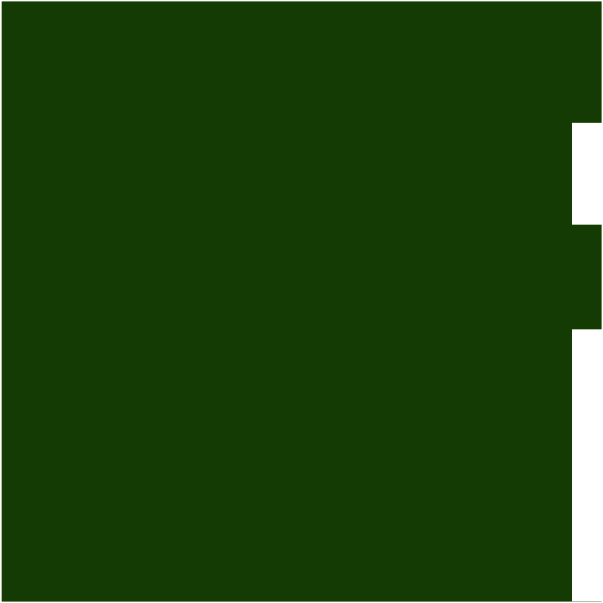
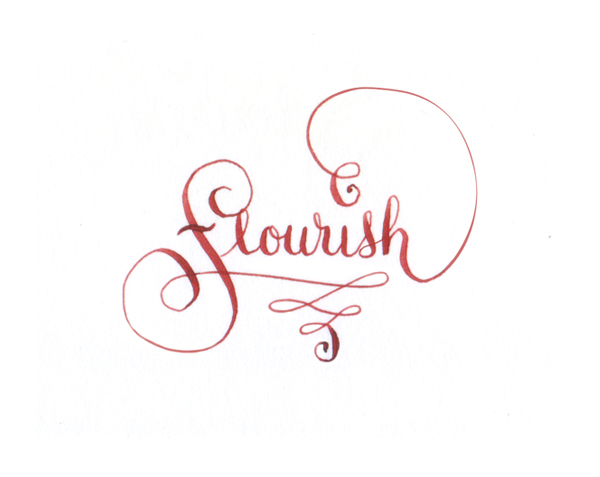
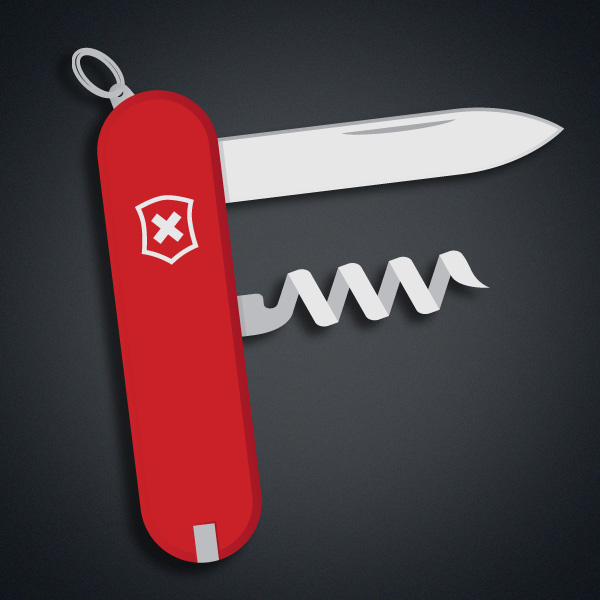
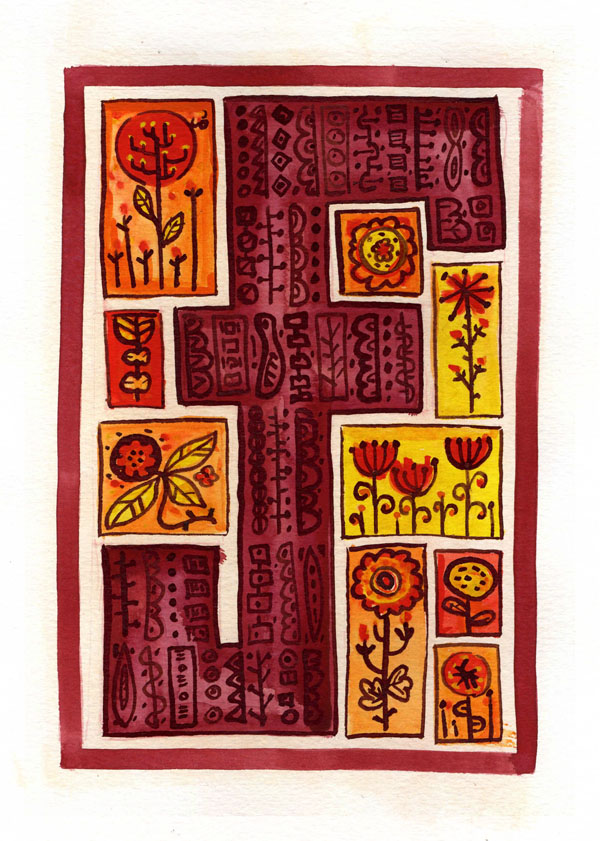
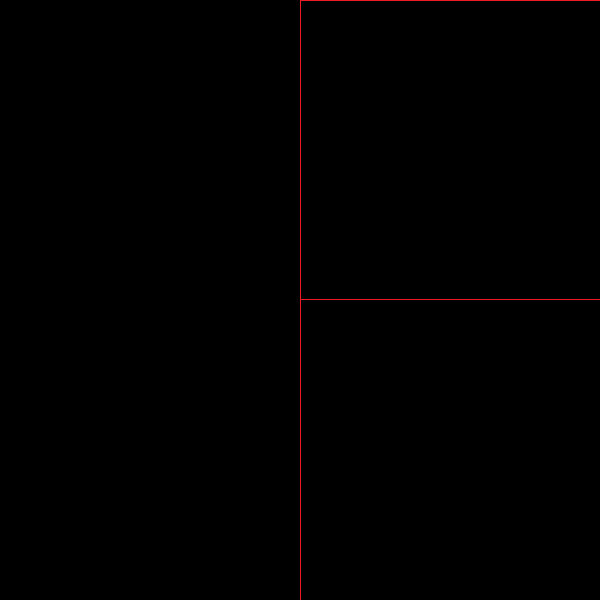
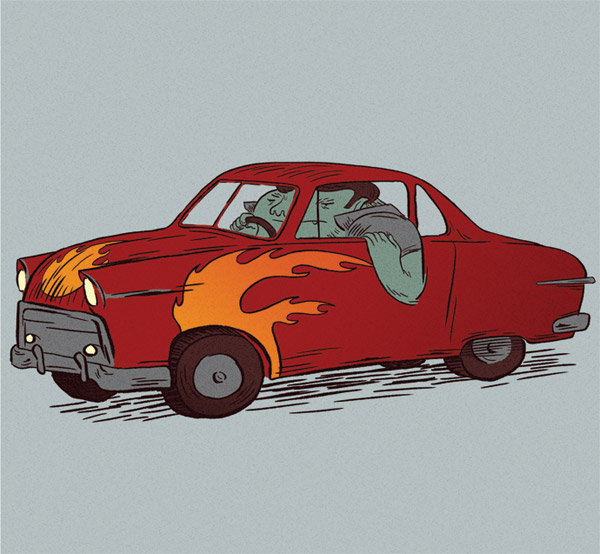
JOSE MIGUEL CONDE ALONSO
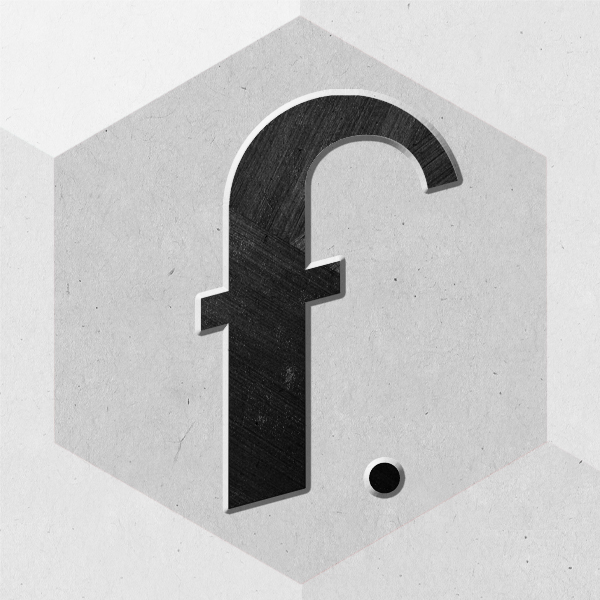
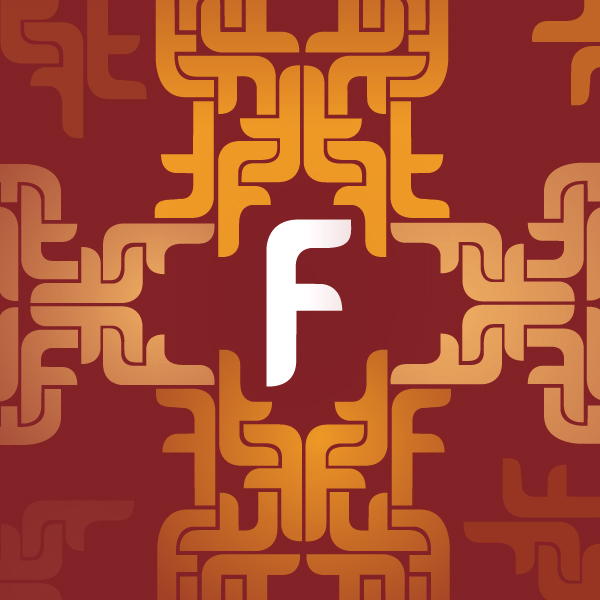
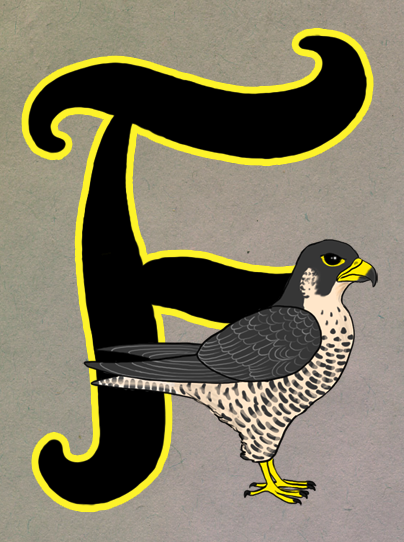
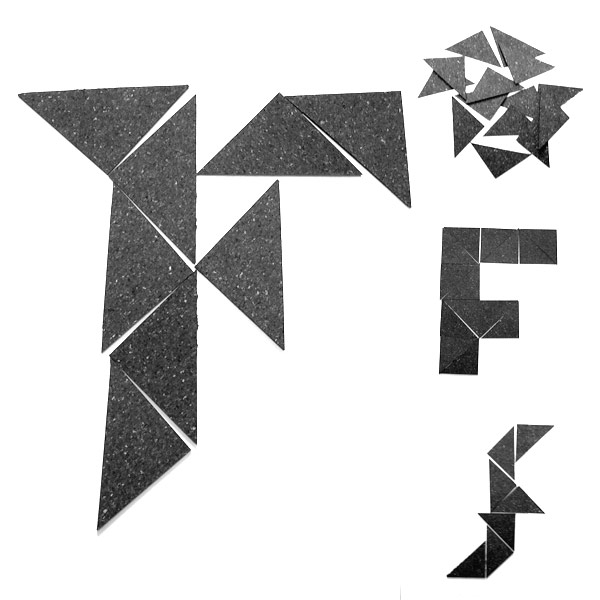
CHRISTEN JAMES
CHRIS STEEL
TIM CANNY
JESSICA FREASE
ADAM GUT
LILIAM CRISTINA
JODEE JOHNSON
GREG ALLESSI for thebadcharacter.com
oh please. there are some serious great design skills going on here! not to mention very cool concepts.
I have been in this business for over 40 years and are still amazed at the creativity of the people in it.
As a whole group the colour and shapes are uplifting and the creativity is inspiring